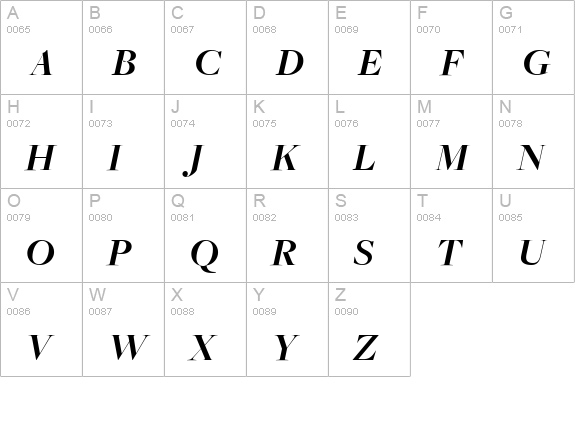
Introducing FreightBigBoldItalic font – a striking and commanding typeface designed to make a bold statement. With its robust and impactful appearance, this font is perfect for conveying strength and authority in your designs. The bold and italicized style adds a touch of sophistication and elegance to any project. But the best part? FreightBigBoldItalic font is available for free download exclusively at FontsMarket.com! Yes, you read that right – you can access this powerful font at no cost, making it a valuable addition to your font collection without breaking the bank. So why wait? Download FreightBigBoldItalic today and elevate your designs with its bold and dynamic presence.